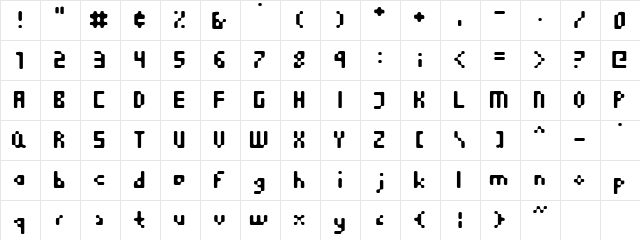
Equilibrium Normal Font Preview
Equilibrium Normal
Design Context for Equilibrium Typeface
Equilibrium offers clean, dependable letterforms without strong stylistic allegiance, making it a practical choice for designers who need flexibility.
Pro Tip: Pair Equilibrium with a font of contrasting weight or personality to build a more expressive typographic hierarchy.